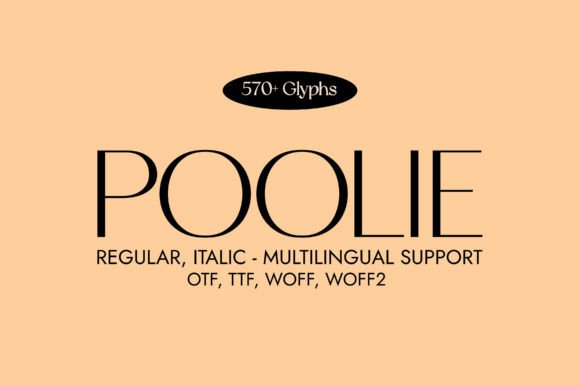
Dive into the realm of elegance and simplicity with Poolie, the sans serif typeface that embodies harmony and sophistication. Crafted with a minimalist approach, Poolie's delicate lines and refined curves seamlessly blend with any design style, becoming the perfect companion for your creative endeavors.
Delve into the world of Poolie, a modern sans serif typeface meticulously designed to elevate your creative projects. With its graceful letterforms and balanced proportions, Poolie ensures readability and impact, making it the ideal choice for logos, branding, and editorial designs.
Embrace Poolie's versatility and watch it seamlessly adapt to your unique design vision. Whether you're crafting timeless logos, creating striking headlines, or designing elegant websites, Poolie's range of weights and widths empowers you to express yourself with precision and style.
Feel the allure of Poolie's minimalist aesthetics and experience the joy of designing with a font that complements your creative vision. Let Poolie be your trusted companion as you craft designs that leave a lasting impression.
Welcome Poolie into your design toolkit and unlock a world of elegance, versatility, and sophistication. Experience the beauty of simplicity and watch your designs flourish with a touch of Poolie's timeless charm.